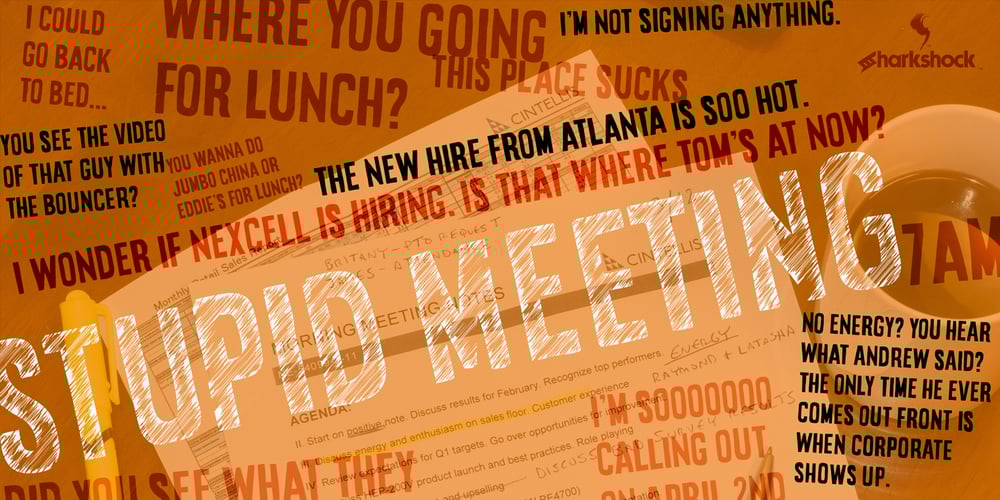
Stupid Meeting
Stupid Meeting font
Stupid Meeting Font Family was designed by Dennis Ludlow and published by Sharkshock. Stupid Meeting contains 3 styles and family package options. Stupid Meeting is an all caps display sans that didn’t quite get its full 8 hours of sleep. A lot of attitude went into the design process and it shows throughout the entire character set. From a distance it looks fairly pedestrian but the closer you get, the rougher it gets around the edges. It’s very simple, yet extremely playful. This family is available in 3 different styles. Use Stupid Meeting for a cartoon, product packaging, or a logo. Try the Eroded version for menu lettering or a band poster. Caps only Fonts.